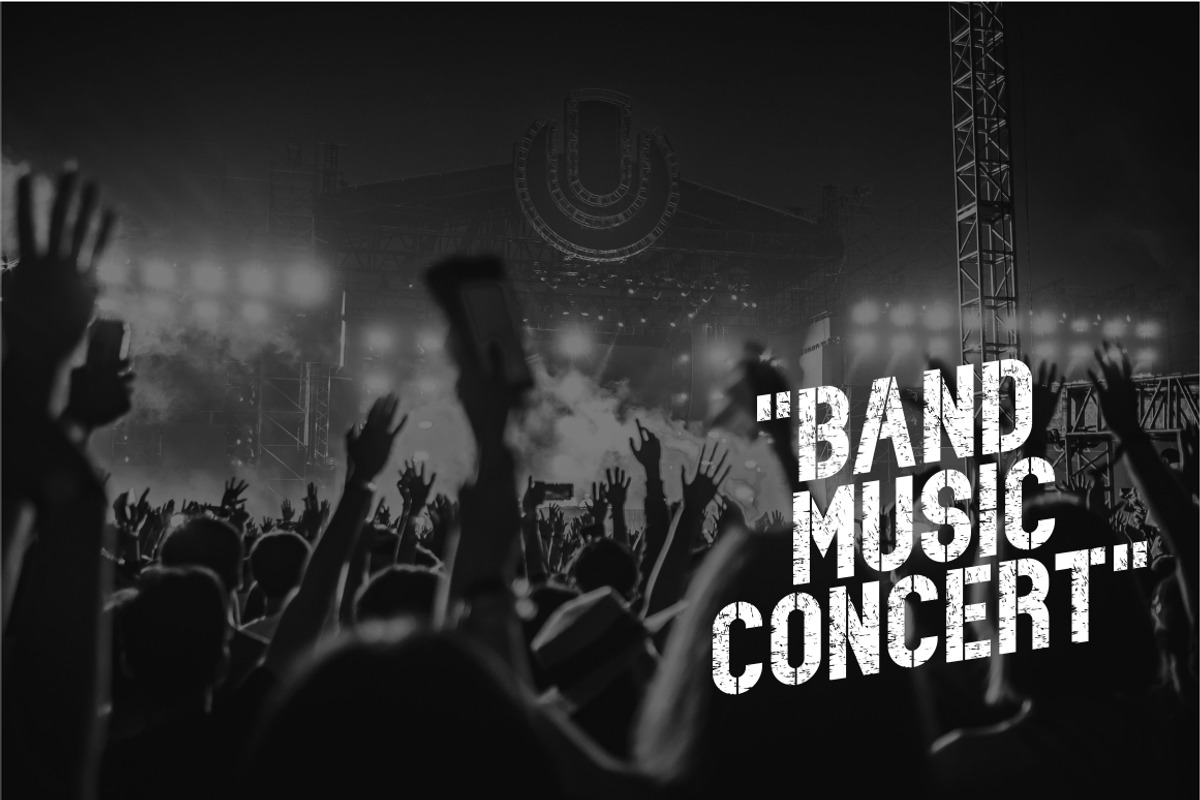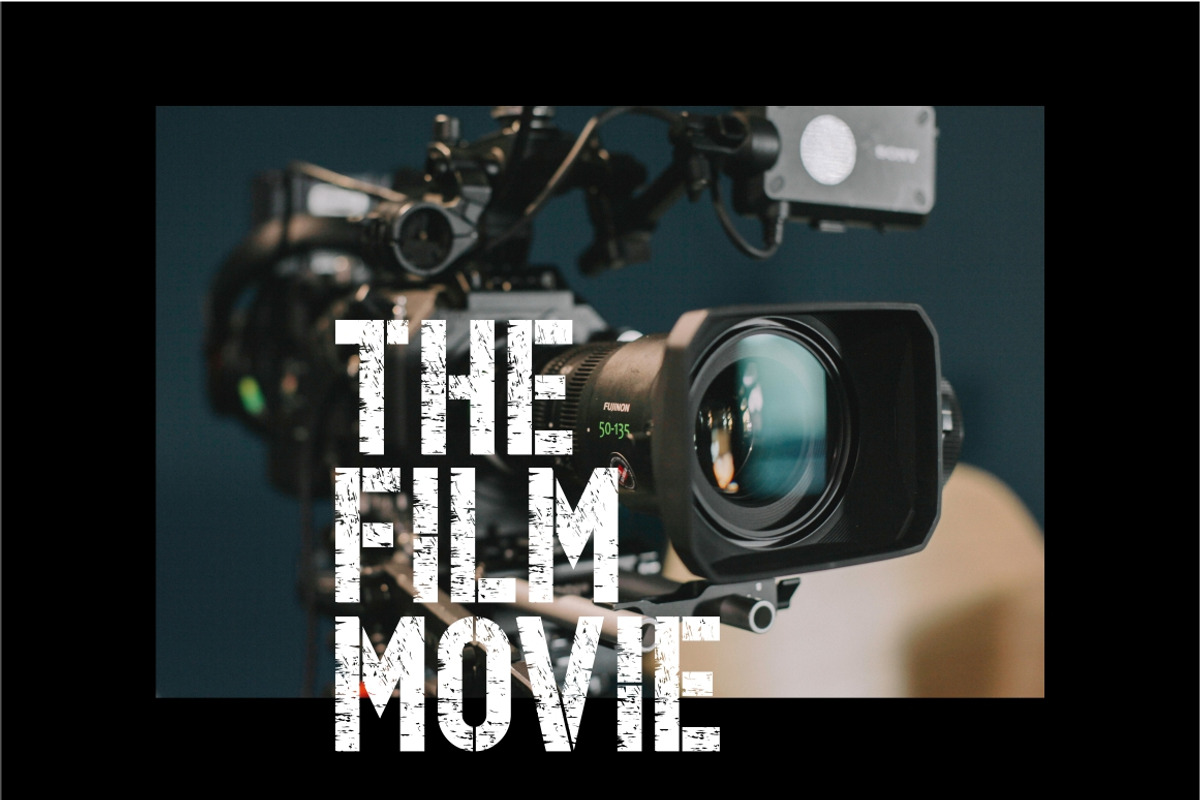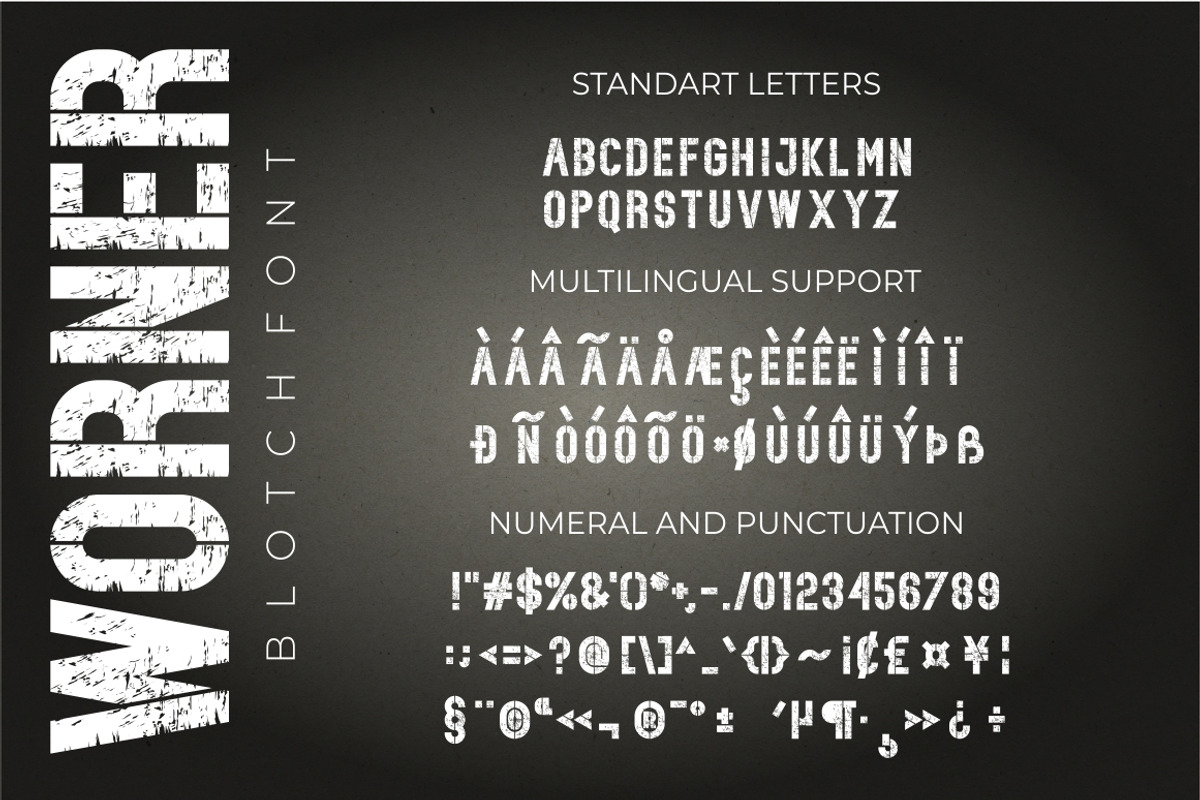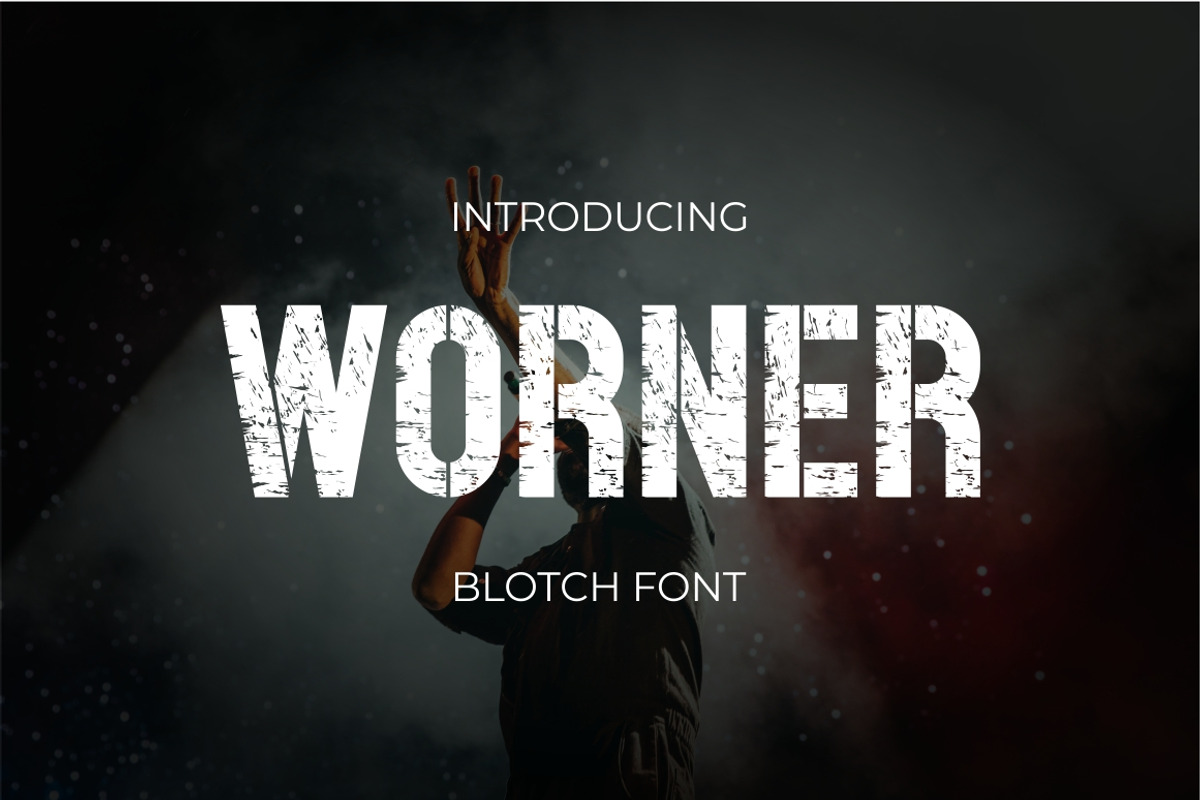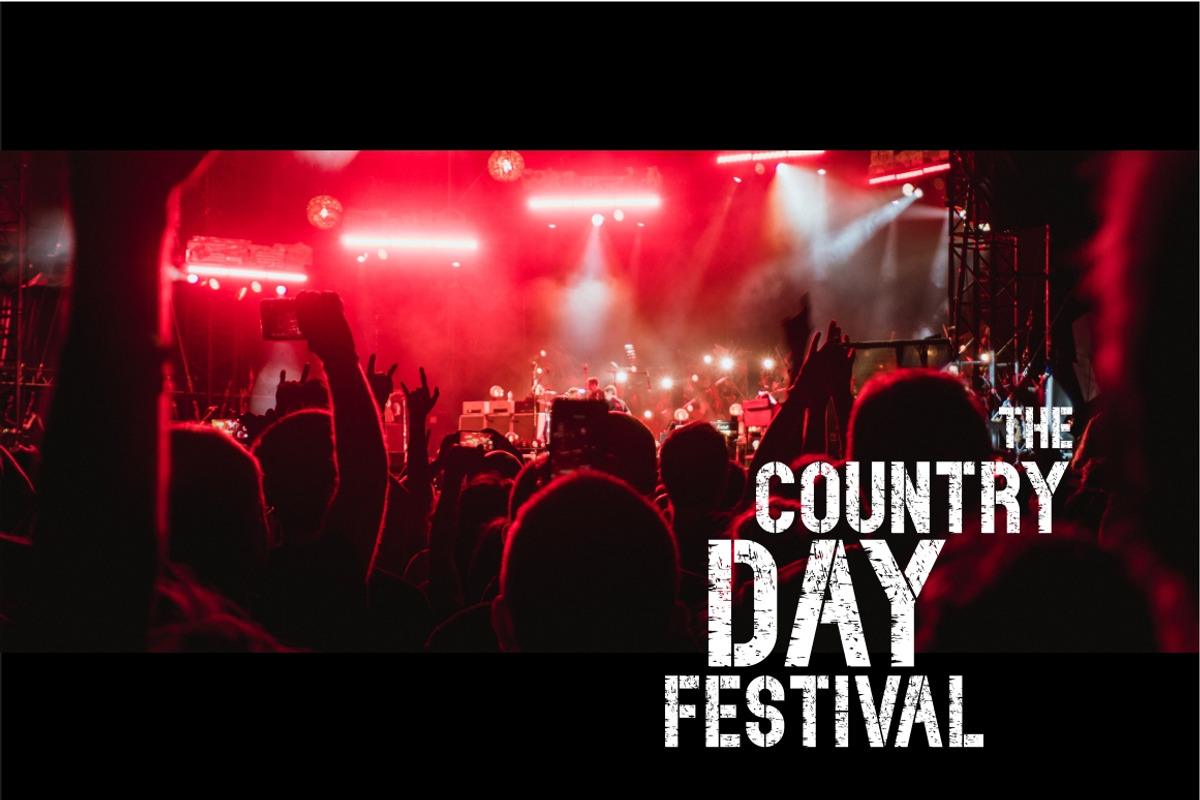
Worner Blotch Font
Hi Ladies and Gentlemen! According to market demand, fonts tend to be more modern in style, so I made this blotted font in your view. The Worner font is a challenging and wildly popular blotch font, coming in a modern style to become a favorite with the market. We keep this font looking elegant, classy, easy to read, stylish, attractive and easy to use. The Worner Font is a great choice for film, music, art, challenging design, and other projects. The Worner font is here to take your designs to the next level.
• All caps • Numeral and punctuation • Multilingual Support